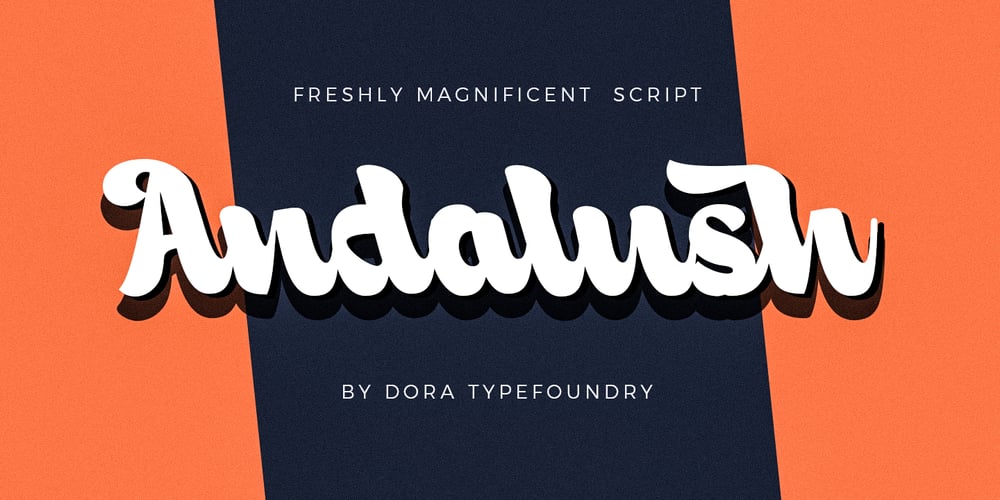
Andalush Font Family was designed by Zahratul Laila and published by Dora Typefoundry. Andalush contains 1 styles and family package options. Andalush is a new type of bold script that is modern and elegant designed with a sense of pleasure, Andalush is suitable for use in various media such as; packaging, logos, labels, posters, clothing designs, wisdom quotes, newsletters, typography and many other media. You can mix and match alternatives with the OpenType feature.Andalush comes with uppercase and lowercase Standard Characters, Punctuation, Numbers. And other Glyph variations of OpenType features such as Standard Ligature, Stylistic Alternate, and Stylistic Set, and includes a series of multilingual characters.We really hope you enjoy and are interested in our offer. If you want to upgrade or need a license or ask questions, you can send me a message and you can immediately start your service doratypefoundry@gmail.com.Thank You